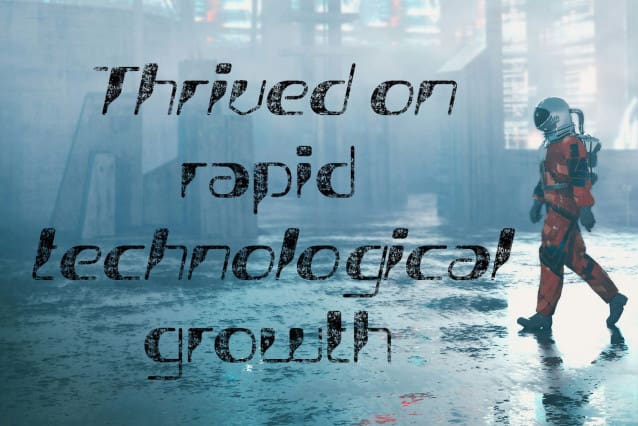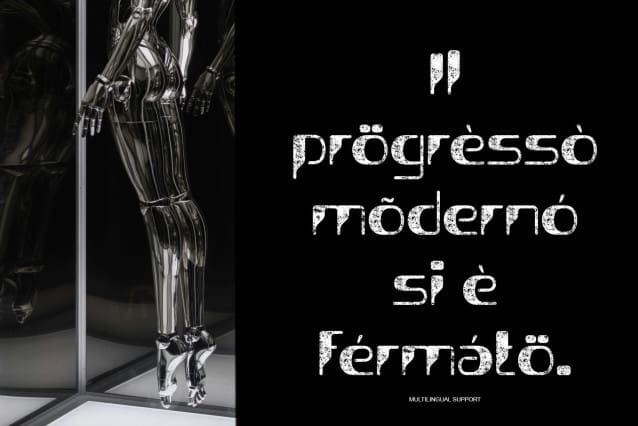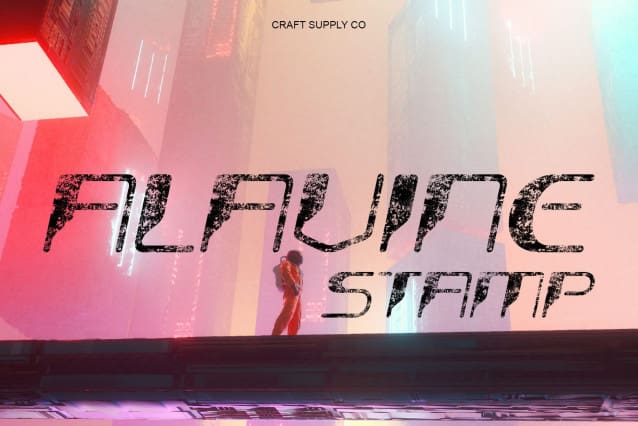
Alavine Stamp Font
Alavine Stamp Font – This is a bold cyberpunk-style font that merges futuristic precision with rugged vintage charm. Its structured letterforms and mechanical rhythm evoke the aesthetics of neon cities and digital rebellion, while the stamp texture adds a tactile, weathered feel that grounds its high-tech design in retro authenticity.
Stamp Texture for Industrial Character
The distinct stamp effect enhances this fonts character, giving it a textured, handcrafted appearance that contrasts beautifully with its clean techno geometry. This fusion of imperfection and precision creates a strong visual identity perfect for projects that celebrate both progress and raw, industrial energy.
Bold Expression for Creative Projects
Alavine Stamp thrives in bold visual environments. Whether used for gaming visuals, posters, or digital branding, it delivers a statement of confidence and defiance. Its balance between futuristic design and vintage edge makes it ideal for capturing attention and conveying a mood of controlled chaos.
Perfect for Games, Posters, and Digital Branding
From sci-fi interfaces to retro-futuristic branding, elevates every composition with its distinctive fusion of modern technology and nostalgic grit. Designers seeking to express rebellion, innovation, or the thrill of digital evolution will find this font a perfect companion for creative storytelling.